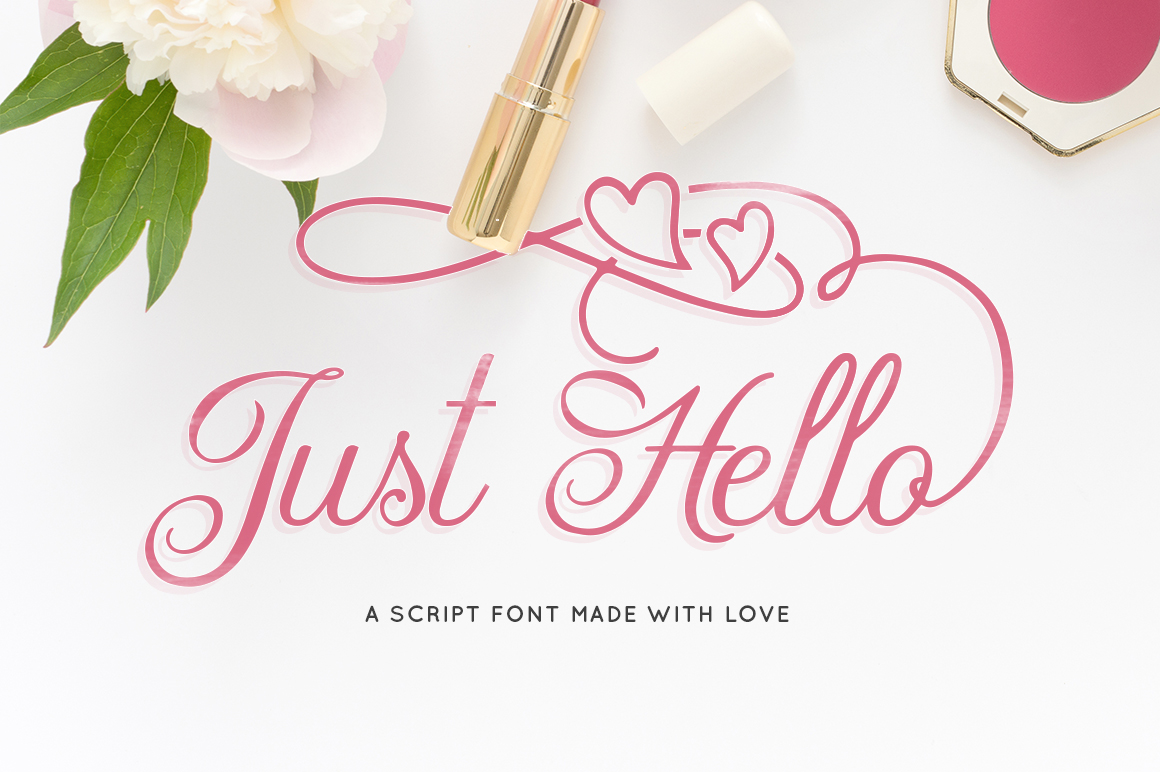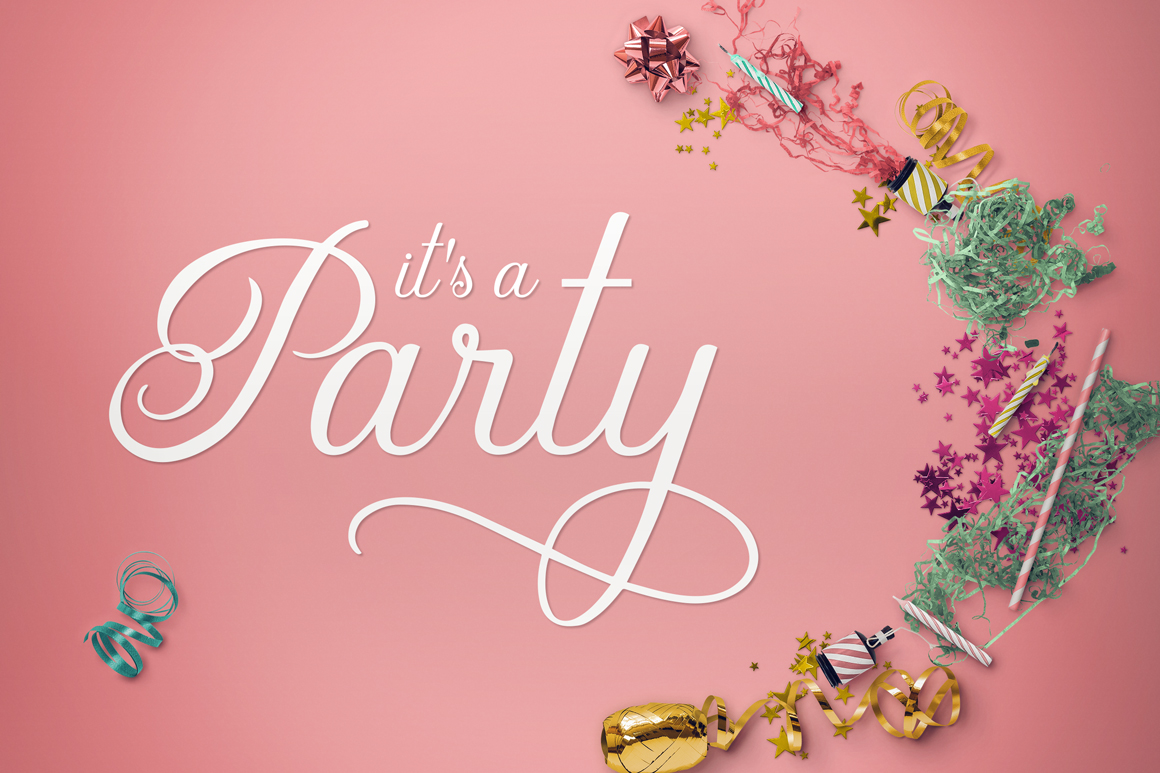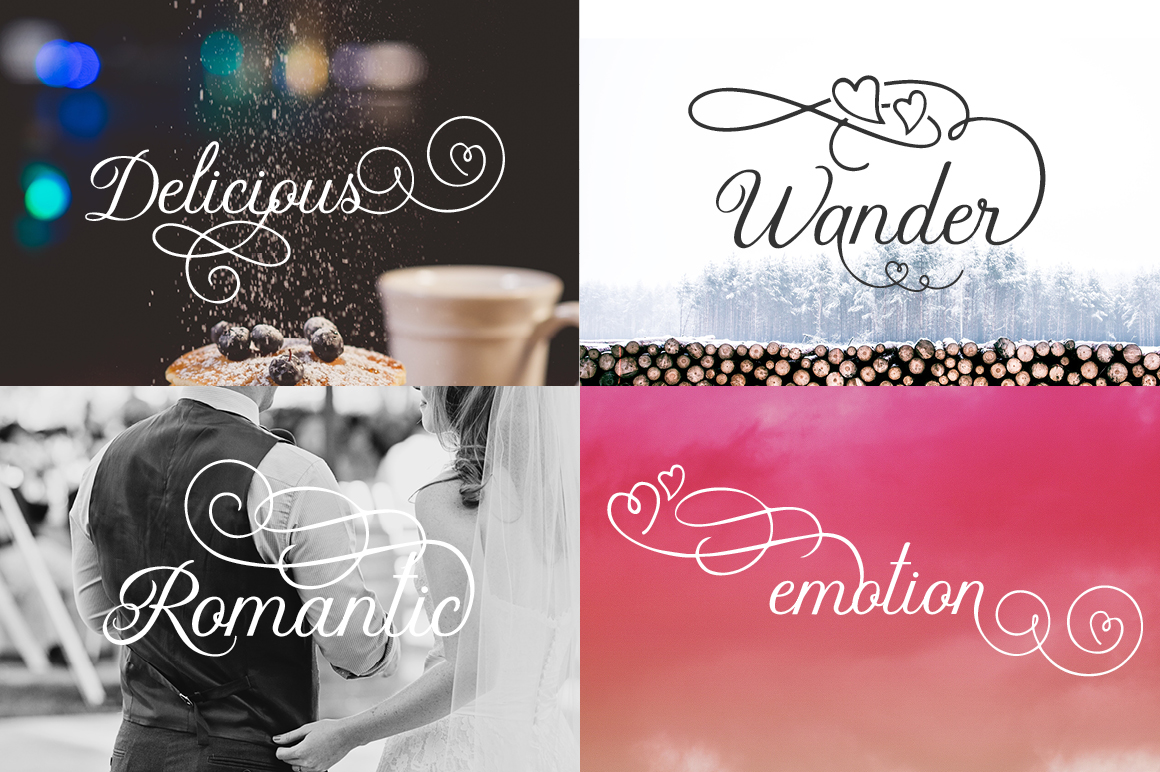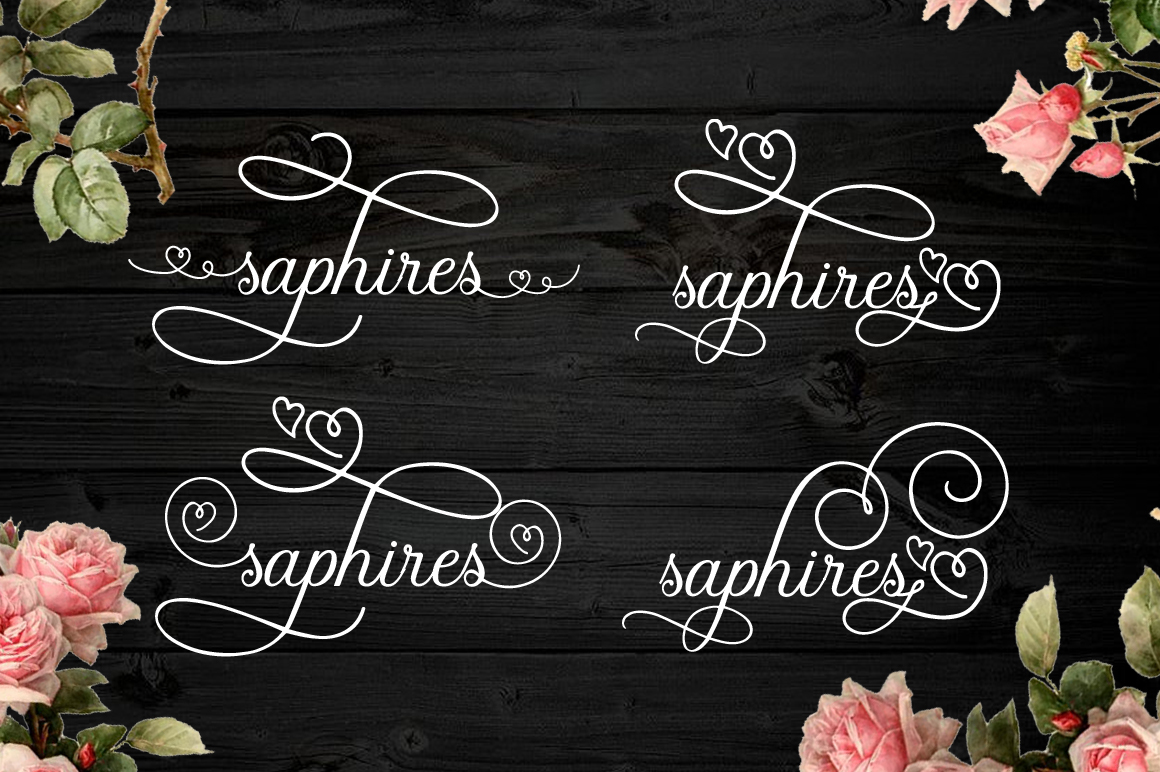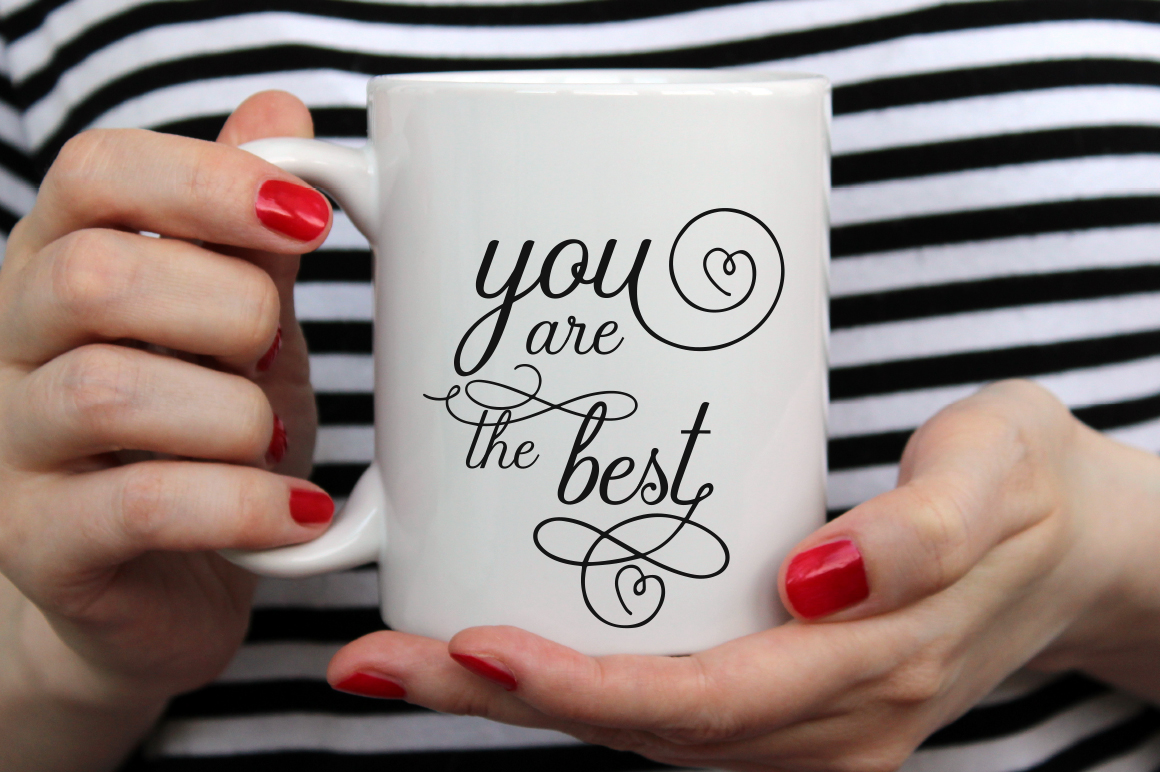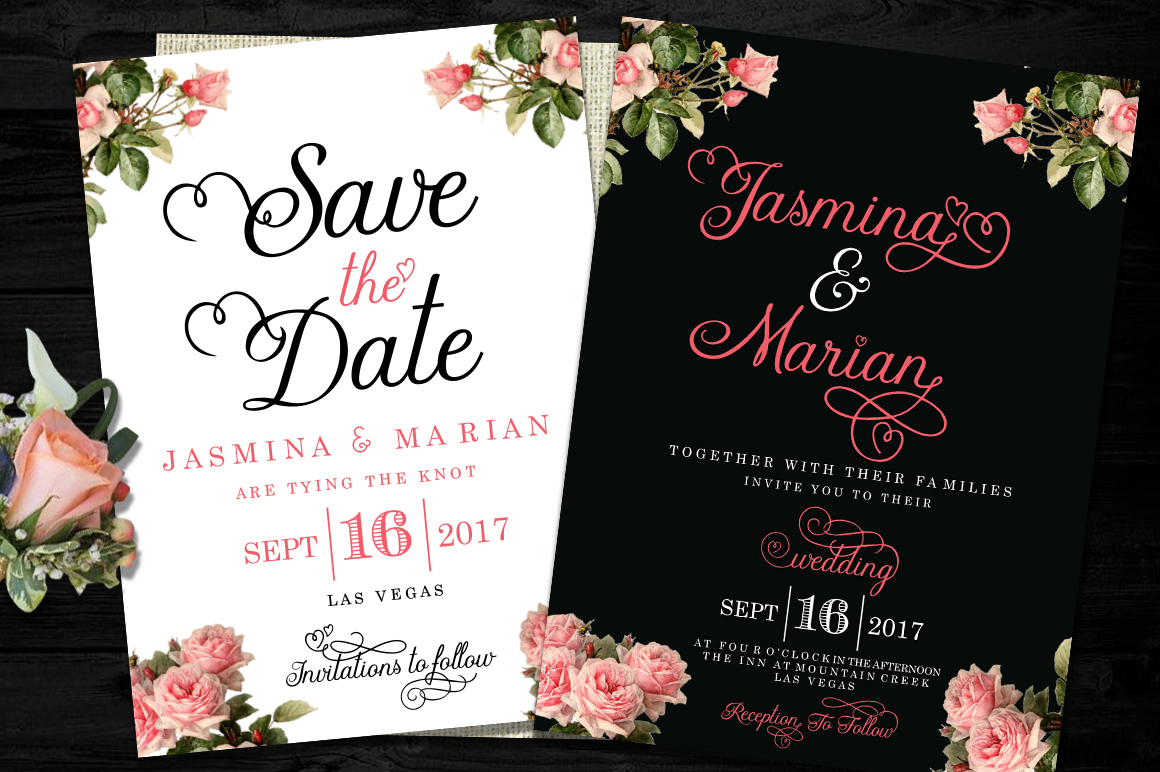
Just Hello Font
Introducing the beautiful Just Hello Script Font.
This stunning font, that’s great for a large range of different designs, comes packed with stunning elegant swashes and swirls.